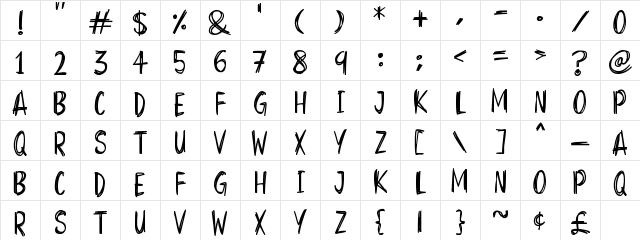
Superscratchy Regular
Design Context for Superscratchy Typeface
Superscratchy is a composed and adaptable typeface that performs quietly and consistently across a wide range of design contexts.
Pro Tip: Use Superscratchy in both headline and body roles to test its range before committing to a single application.